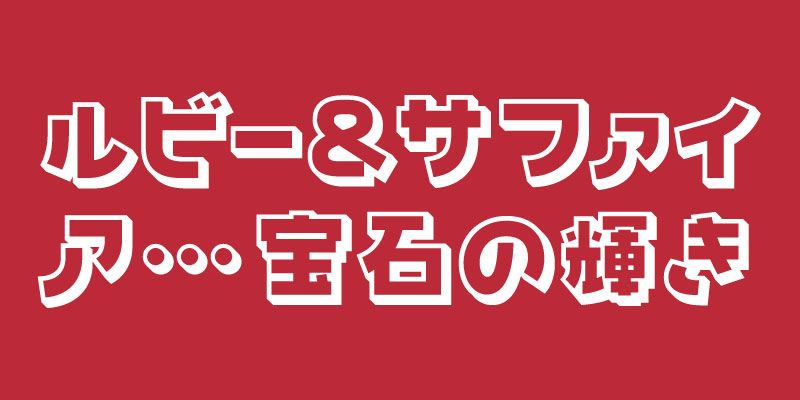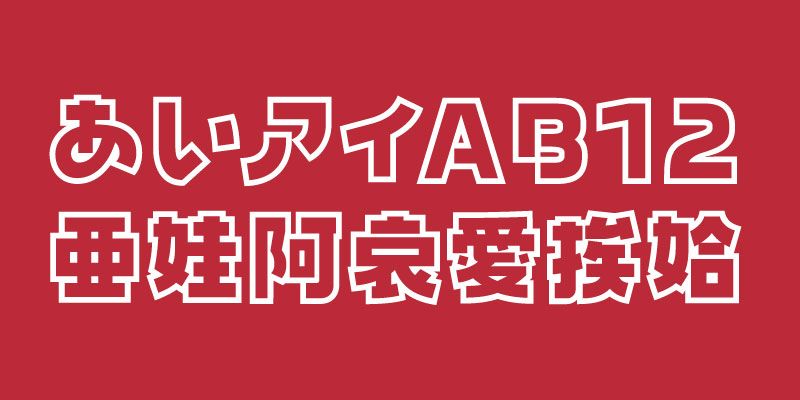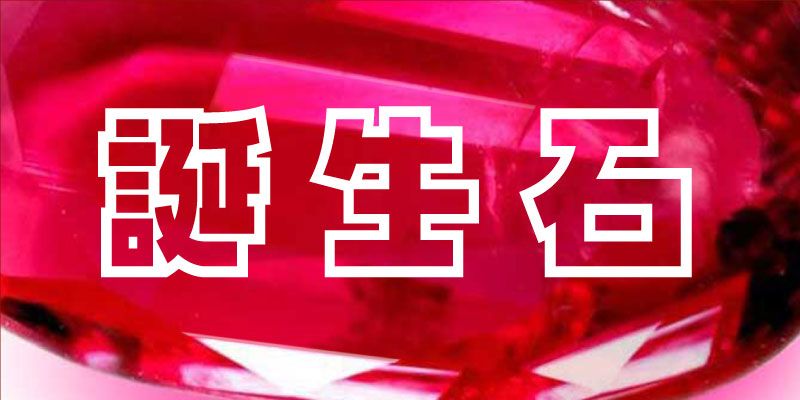
VDL MegaG-pop is a decorative typeface based on the design of VDL MegaG.
There are two styles: VDL Mega G-pop-FutoLine, which emphasizes the outlines of the characters, and VDL Mega G-pop-Shadow, which creates a three-dimensional effect by casting shadows behind the characters.
As a display font, it includes 9,354 glyphs based on the Adobe-Japan 1-3 Character Collection.